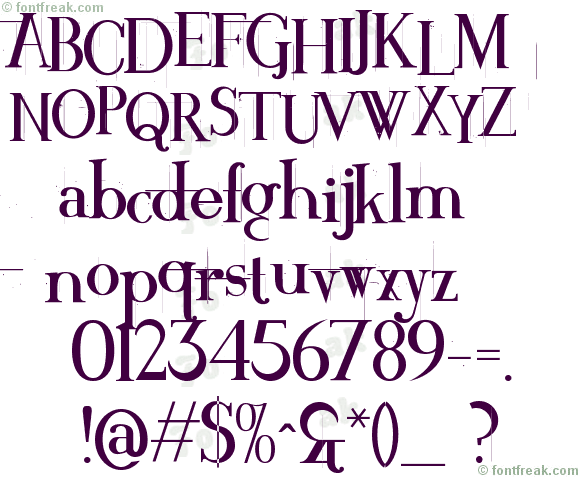
Crackin
About Crackin
The Crackin font, designed by Mans Greback in 2011, is a striking display typeface that captivates with its unique style and flair. This font falls into the decorative category, known for its bold personality and eye-catching aesthetics. Its stroke weight is consistent, providing a harmonious balance that makes it suitable for a variety of creative applications. With moderate contrast between thick and thin strokes, Crackin showcases an engaging visual rhythm that draws the viewer's attention. The spacing is well-calibrated, enhancing readability while maintaining a distinctive look.
Crackin is perfect for several use cases, including eye-catching movie posters that demand attention, vibrant restaurant menus that highlight culinary artistry, and dynamic branding materials for small businesses looking to make a memorable impression. Additionally, it can elevate wedding invitations, adding a touch of elegance and creativity to any special occasion. The font's versatility appeals to a broad target audience, including graphic designers, small business owners, and content creators who are on the lookout for a unique typeface that inspires creativity.
What sets the Crackin font apart is its ability to blend personality with functionality. Its distinctive design elements make it stand out in a crowded field of typefaces, offering a fresh alternative for projects that require a memorable touch. The Crackin font free download option allows users to explore its potential without any financial barriers, making it accessible to anyone looking to enhance their design repertoire. Whether you're crafting a captivating visual story or branding a new venture, the Crackin font provides an exciting canvas for creativity and expression.